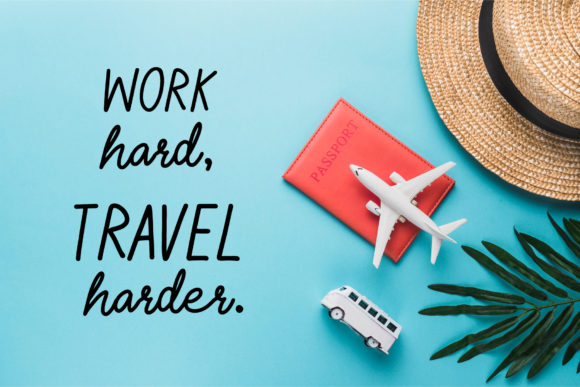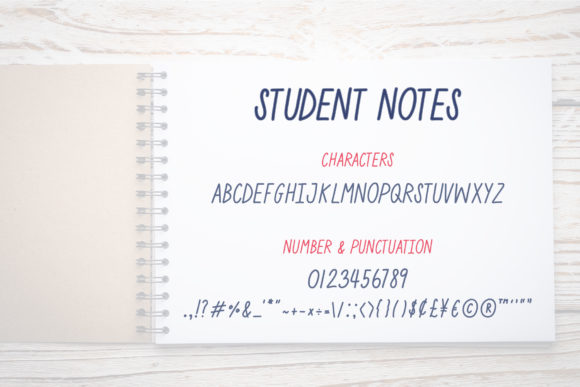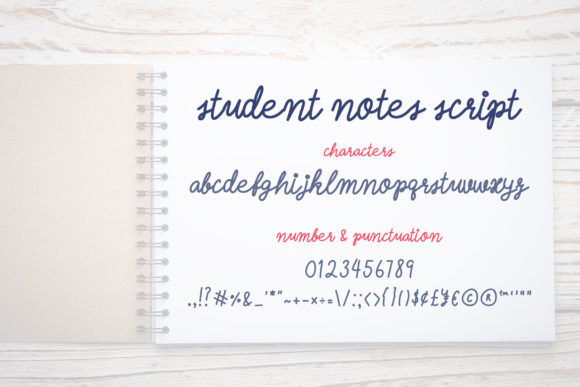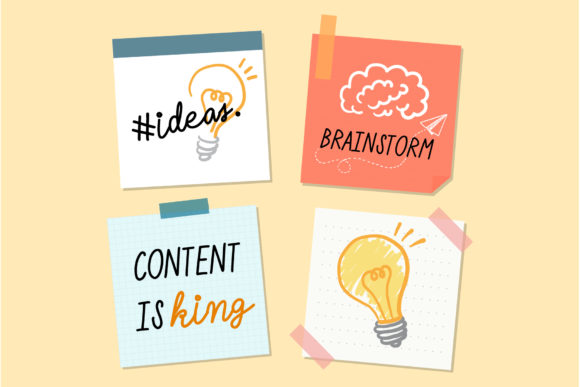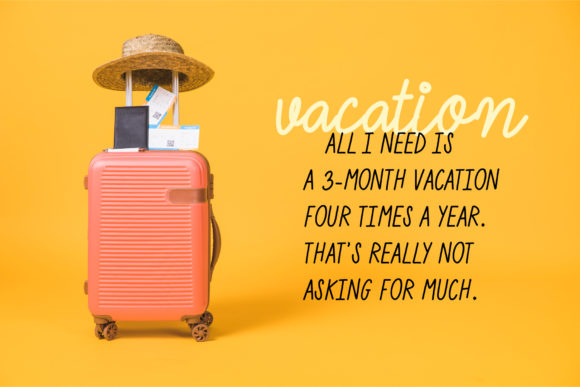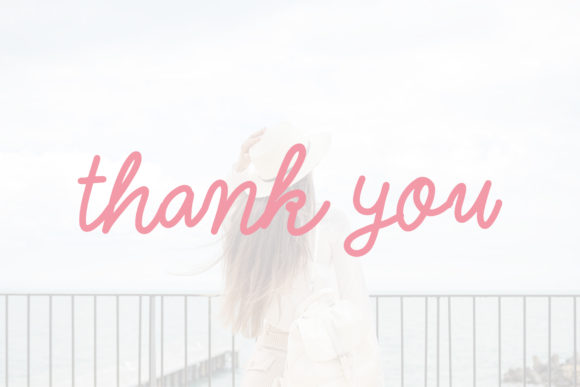
Student Notes Font
About Student Notes Font
Student Notes is a casual and friendly handwritten font. Get creative with its childlike playfulness, and use it to brighten up any kids and school project!